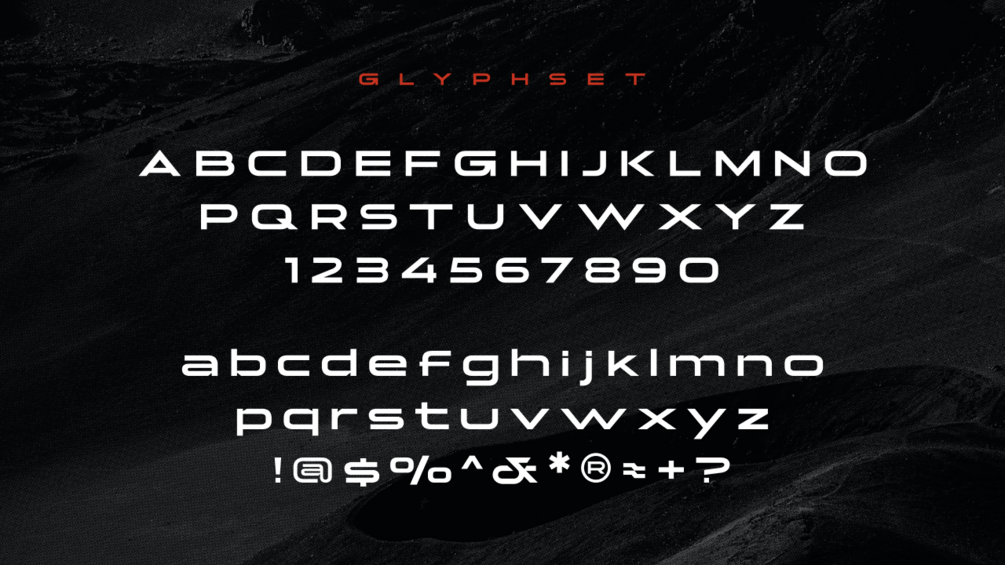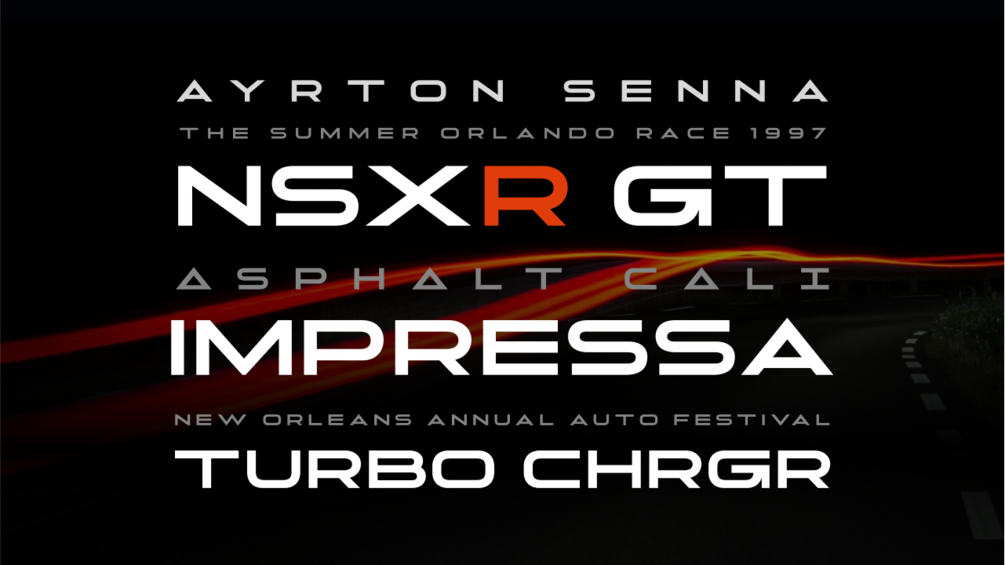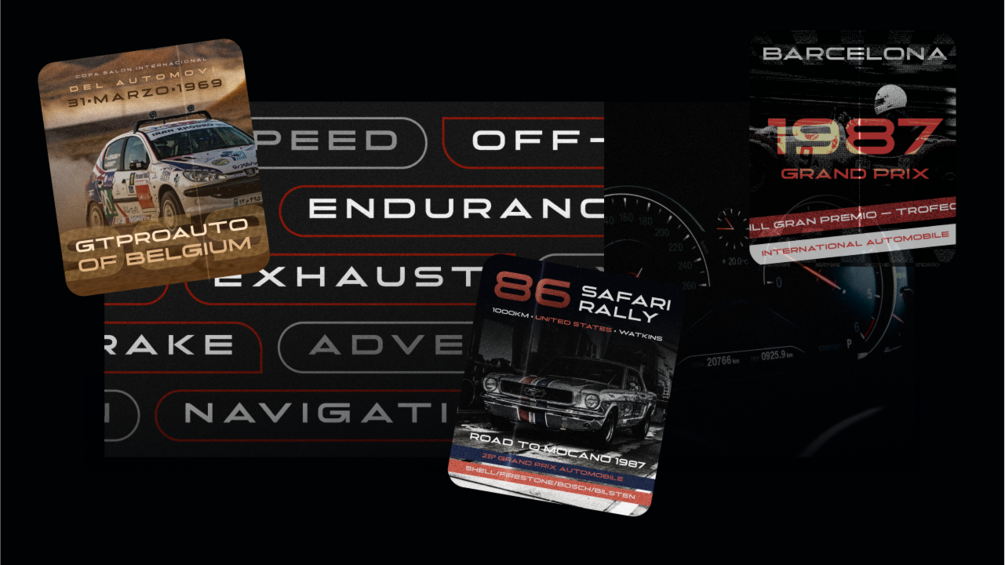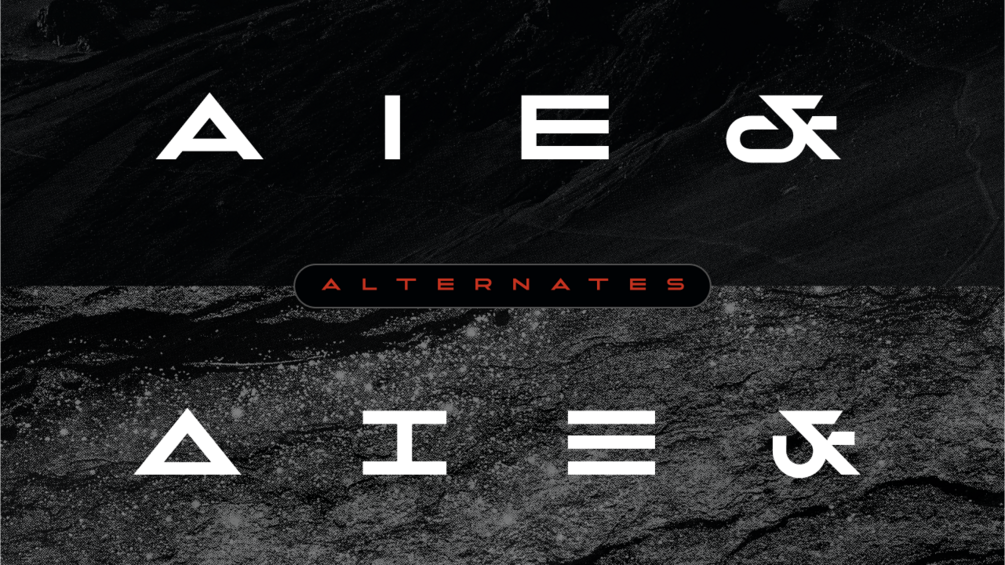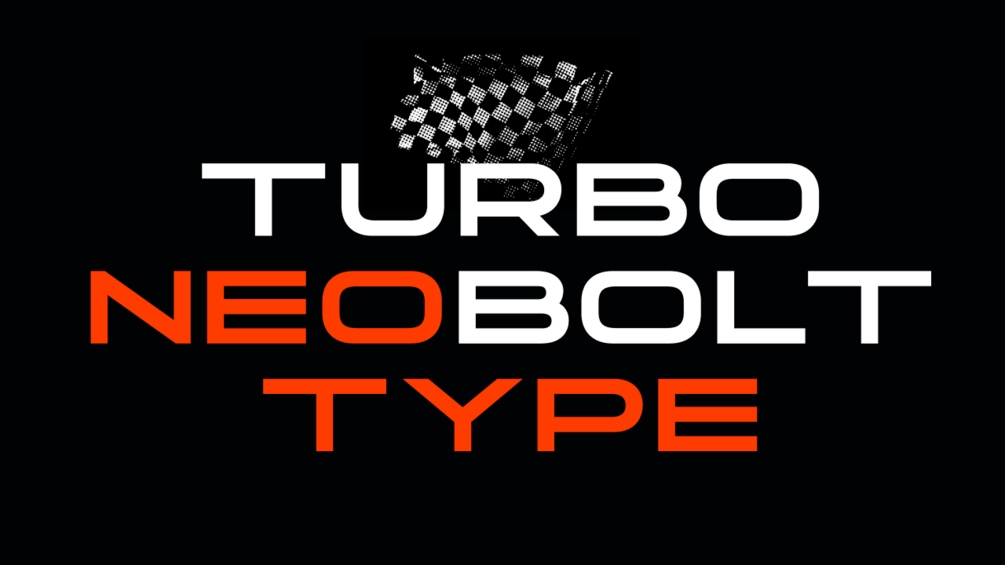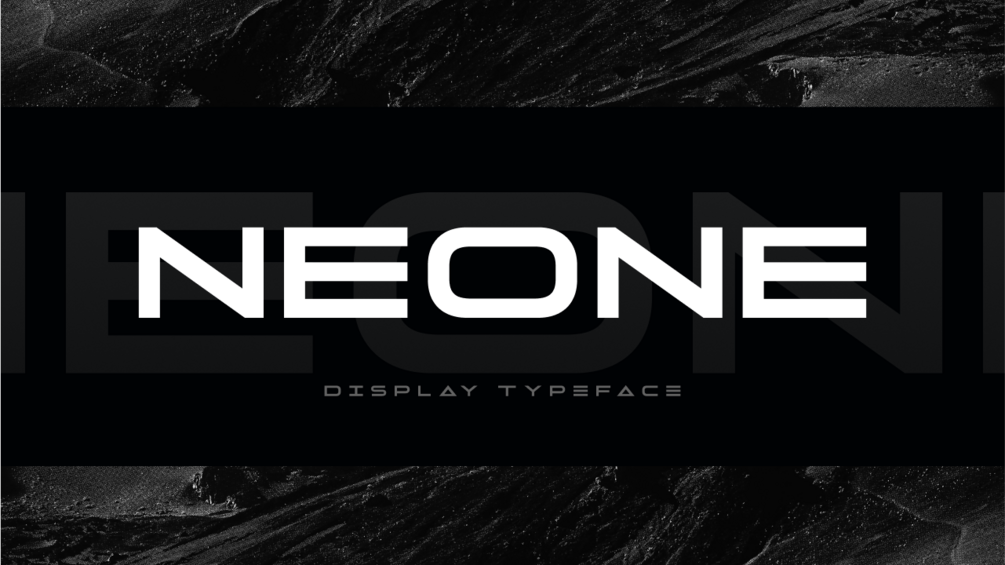
Neone ZT
Neone® ZT is a bold, clean, and elegant display font designed to make a statement. Its strong lines and graceful curves create a sophisticated yet modern look, perfect for automotive branding, movie posters, graphic design, packaging, and websites. Neone's versatility and timeless appeal make it a valuable asset for everyone seeking to create impactful and memorable visuals.
The Neone® ZT features: Uppercase, Lowercase, Numbers, Multi-language Support, Ligatures.